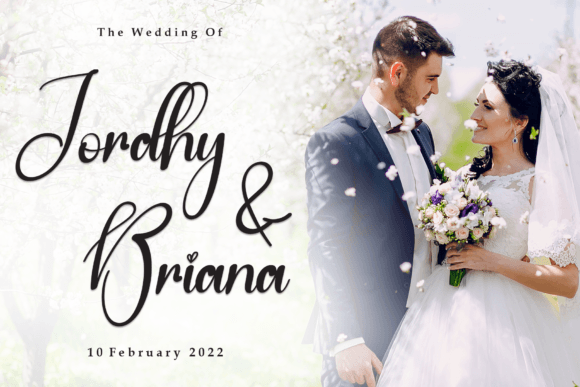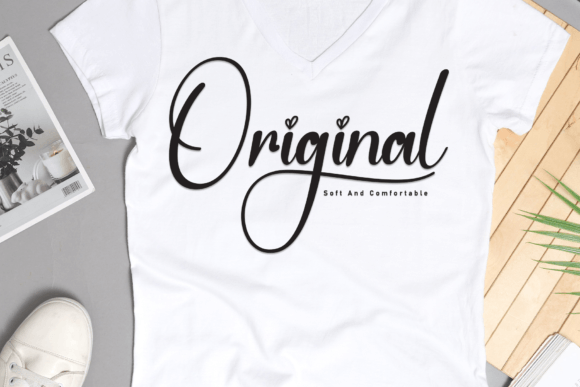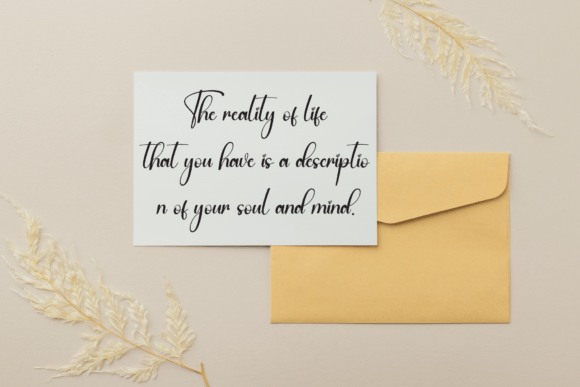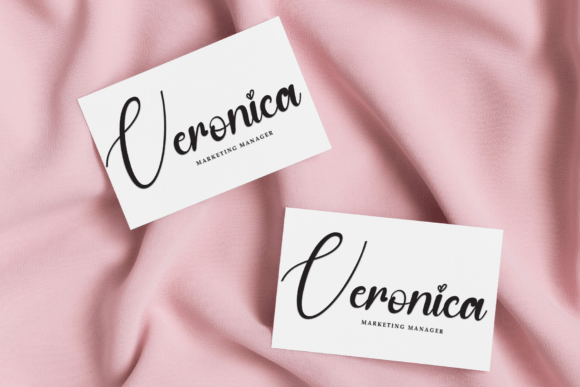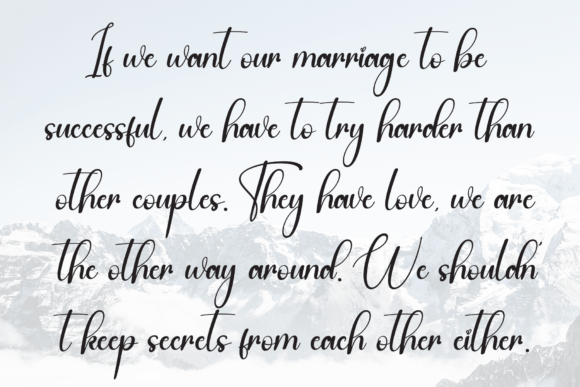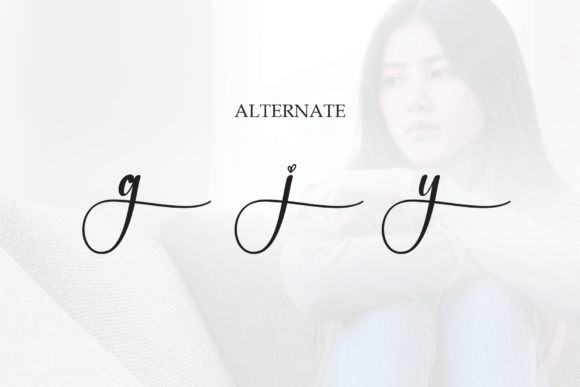
Introducing Daydream Font: A Romantic and Sweet Calligraphy Typeface
Are you a designer or crafter looking for a font that exudes romance and sweetness? Look no further than Daydream Font, a beautiful calligraphy typeface that is sure to capture your heart. With its dancing characters and elegant touch, Daydream Font is the perfect addition to any design project.
What is Daydream Font?
Daydream Font is a romantic and sweet calligraphy typeface with characters that dance along the baseline. It has a casual, yet elegant touch that makes it perfect for a variety of design projects, from wedding invitations and stationery to branding and packaging. The font’s flowing lines and curves give it a whimsical feel that is sure to delight.
Key Features of Daydream Font
- Romantic and Sweet: Daydream Font is a perfect choice for designers and crafters who want to add a touch of romance and sweetness to their designs.
- Dancing Characters: The font’s characters dance along the baseline, giving it a playful and whimsical feel.
- Casual yet Elegant: Daydream Font has a casual, yet elegant touch that makes it perfect for a variety of design projects.
- Calligraphy Typeface: The font is a beautiful example of calligraphy, with flowing lines and curves that give it a unique and distinctive look.
Uses for Daydream Font
Daydream Font is a versatile font that can be used for a variety of design projects, including:
- Wedding Invitations: The font’s romantic and sweet feel makes it perfect for wedding invitations and stationery.
- Branding and Packaging: Daydream Font can be used to add a touch of elegance and sophistication to branding and packaging designs.
- Signage and Displays: The font’s bold and playful feel makes it perfect for signage and display designs.
- Digital Designs: Daydream Font can be used for digital designs, such as social media graphics and website headers.
Why Choose Daydream Font?
There are many reasons why designers and crafters choose Daydream Font for their design projects. Here are just a few:
- Unique and Distinctive: Daydream Font is a unique and distinctive font that will set your designs apart from the crowd.
- Elegant and Sophisticated: The font’s elegant and sophisticated feel makes it perfect for high-end designs.
- Easy to Read: Despite its playful feel, Daydream Font is easy to read and can be used for both headings and body text.
- Versatile: The font can be used for a variety of design projects, from print to digital.
Tips for Using Daydream Font
Here are a few tips for using Daydream Font in your design projects:
- Pair with a Simple Font: Pair Daydream Font with a simple font to create a striking contrast.
- Use for Headings: Use Daydream Font for headings and titles to add a touch of elegance and sophistication.
- Have Fun: Don’t be afraid to get creative and have fun with Daydream Font!
Daydream Font is a beautiful and versatile calligraphy typeface that is perfect for designers and crafters who want to add a touch of romance and sweetness to their designs. With its dancing characters and elegant touch, Daydream Font is sure to capture your heart. Whether you’re designing wedding invitations, branding and packaging, or digital designs, Daydream Font is a great choice.